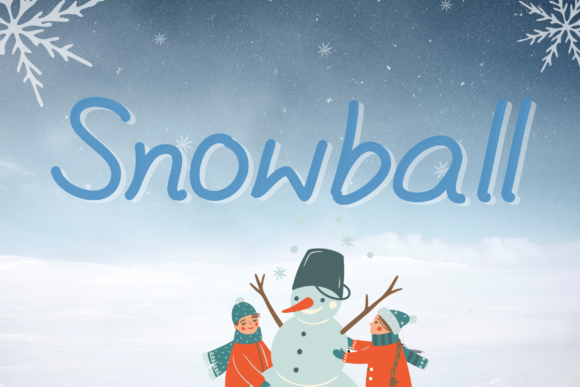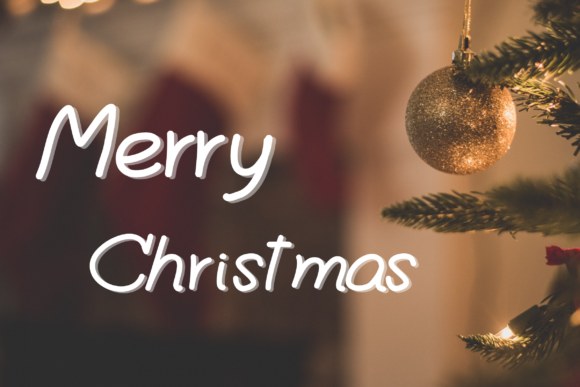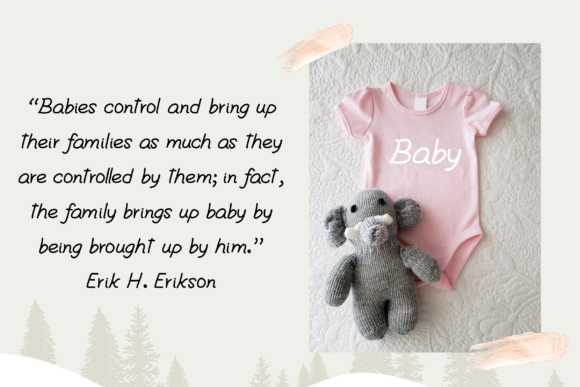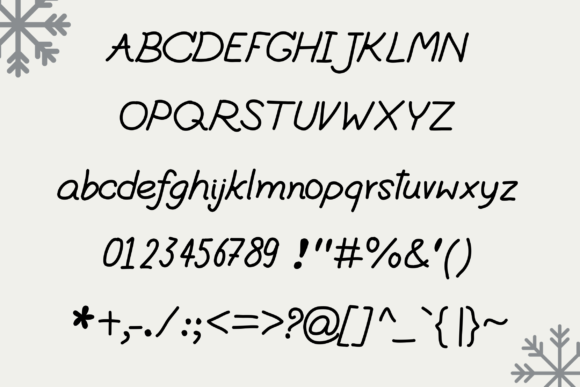
Snowball Font
About Snowball Font
Snowball is a delightful and charming handwritten font that adds a touch of sweetness and friendliness to any design. With its natural and unique style, it brings a warm and personal feel to your projects, making them stand out.
The font’s versatility allows it to be used in a wide range of design applications. Whether you’re creating greeting cards, invitations, quotes, branding materials, or social media graphics, Snowball adds a playful and welcoming touch that captures attention.
Snowball’s organic and flowing letterforms evoke a sense of handmade craftsmanship. The imperfect curves and slight variations in stroke thickness give the font an authentic and human touch, creating a genuine and approachable vibe.
Its legible and readable nature ensures that your message comes across clearly, while its friendly appearance adds a personal and relatable element to your designs. Snowball is well-suited for creating designs that evoke warmth, joy, and a sense of connection.
The font’s natural style makes it a versatile choice for both casual and whimsical designs. It can be paired with playful illustrations, bright colors, and other decorative elements to create a cohesive and delightful visual experience.
Snowball allows you to unleash your creativity and imagination. Its unique style invites experimentation and encourages you to explore various design possibilities. Whether you’re designing for a children’s project, a handcrafted brand, or simply want to add a touch of friendliness to your designs, Snowball is up to the task.
With Snowball in your font library, you have the freedom to infuse your designs with a sense of warmth and playfulness. Let your imagination run wild and create designs that leave a lasting impression with the sweet and friendly charm of Snowball.